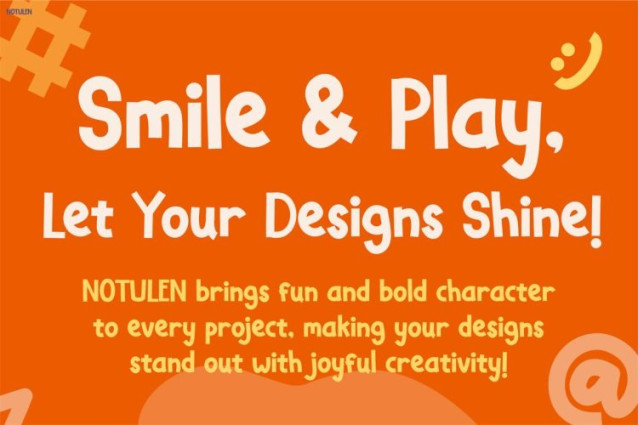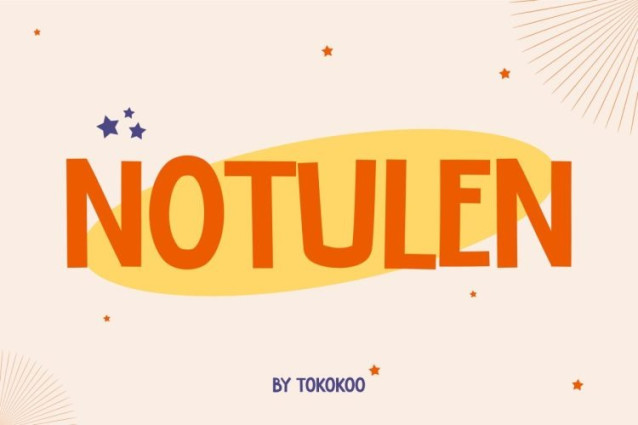
Notulen Display Font
Notulen Display Font brings happiness and creativity into every design. From the first glance, this bold display font feels friendly and fun. Moreover, chunky shapes and rounded edges give each letter a warm personality. As a result, the font looks energetic without appearing messy. In addition, every character stays balanced, clear, and expressive. Because of this structure, designs stand out while remaining visually clean. Overall, Notulen works perfectly for projects that need a joyful and welcoming tone.
Furthermore, Notulen draws inspiration from imagination and childhood energy. Thick strokes create strong visual impact right away. At the same time, soft curves add a cheerful and approachable feel. Therefore, the font feels playful while staying easy to read. Not only does it perform well at large sizes, but it also remains clear at smaller scales. Consequently, Kids Font Notulen helps messages feel positive, friendly, and confident.
First of all, Notulen features strong letterforms with smooth, rounded shapes. In addition, designers can rely on its clarity for both print and digital use. Because of its bold structure, headlines and titles gain high visibility. Meanwhile, rounded details keep the overall look soft and inviting. As a result, the font balances fun expression with practical readability. Most importantly, Kids Font Notulen adds charm and personality without overwhelming the design.
Who Is It For
To begin with, Kids Font Notulen suits graphic designers, educators, illustrators, and brand owners. For example, designers can use it for kids branding, packaging, posters, and educational content. Likewise, it works perfectly for toy labels, snack packaging, storybooks, stickers, and logos. In addition, content creators can apply it to social media posts and playful advertisements. Meanwhile, teachers and parents can use it for learning materials. Ultimately, small businesses can build friendly and memorable brands with this font.
Make Your Designs Smile
In conclusion, Kids Font Notulen turns simple ideas into joyful visuals. More importantly, it brings warmth, fun, and confidence to every project. So, add this font to your collection and start creating designs that connect instantly. Finally, let your work feel bold, playful, and full of imagination.